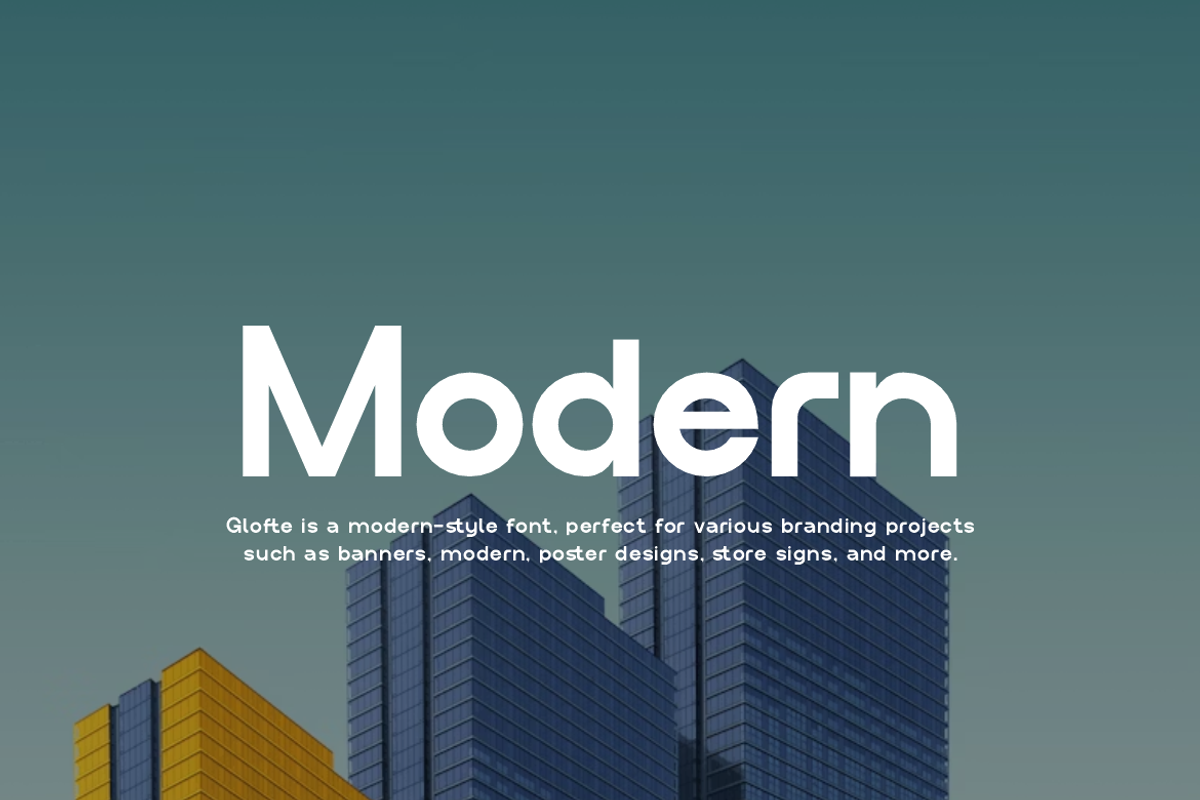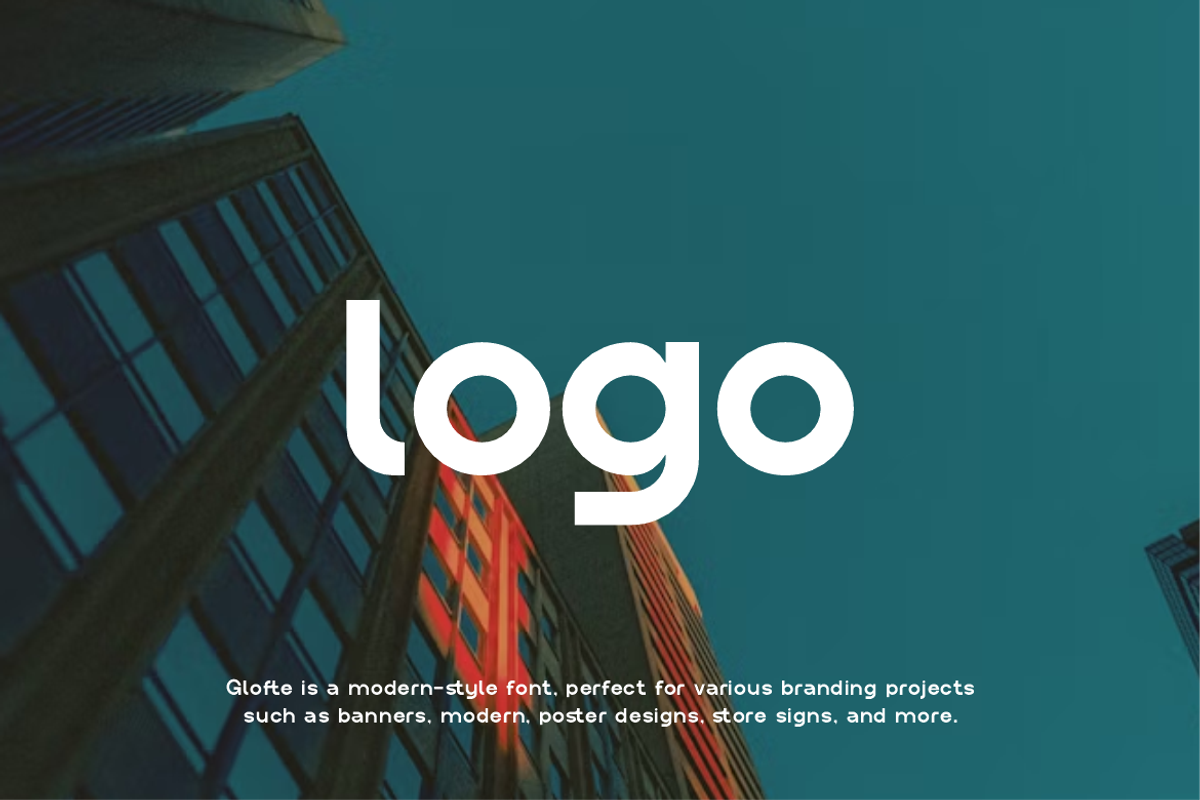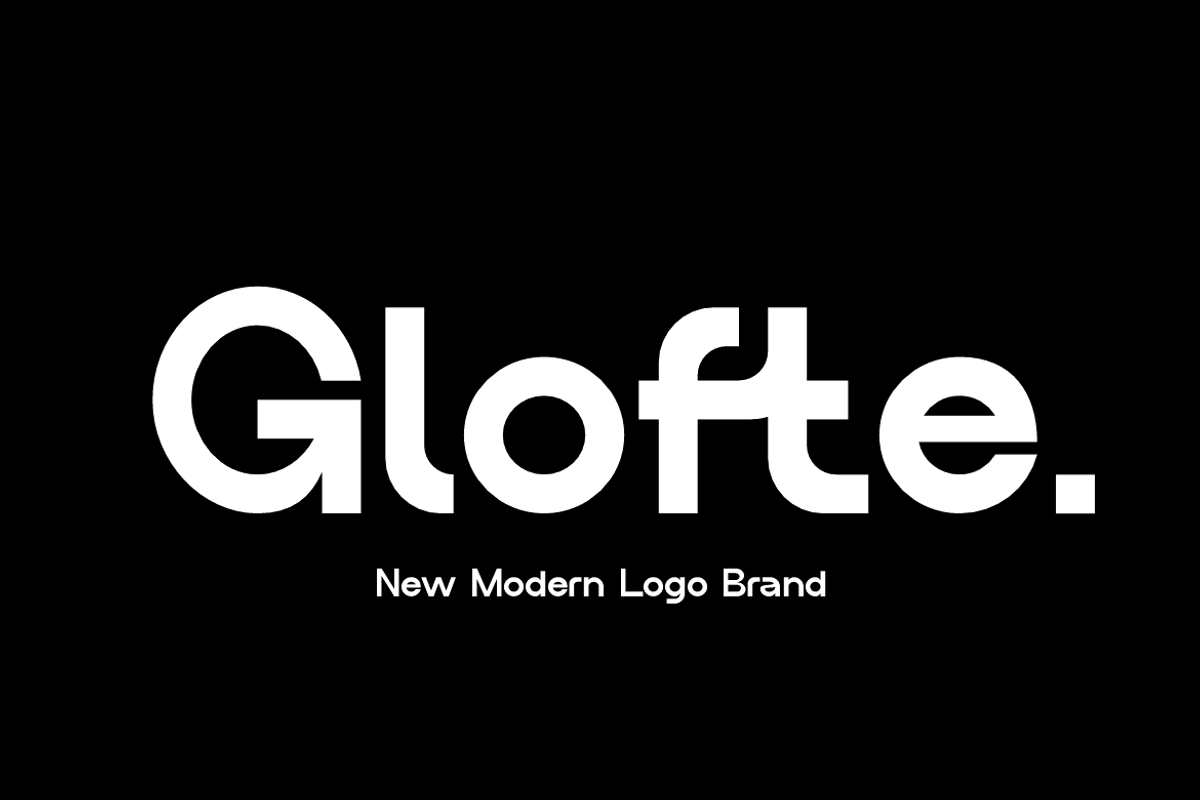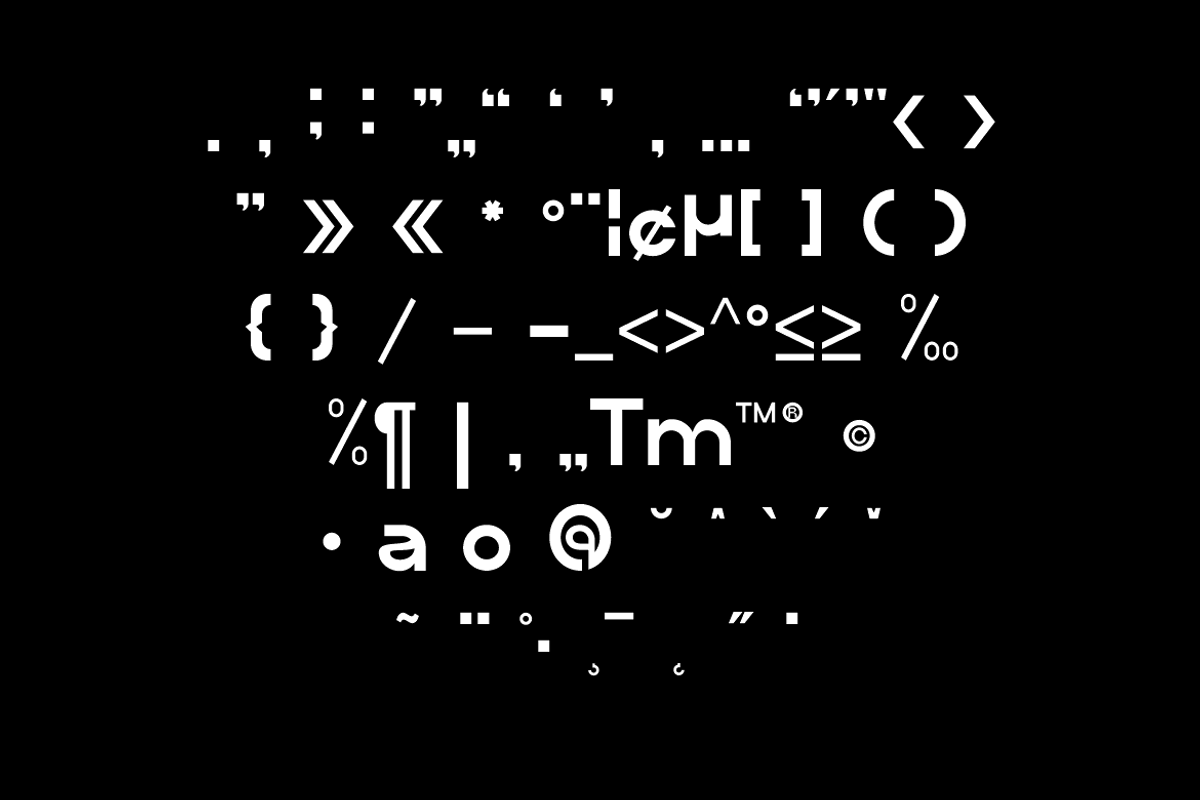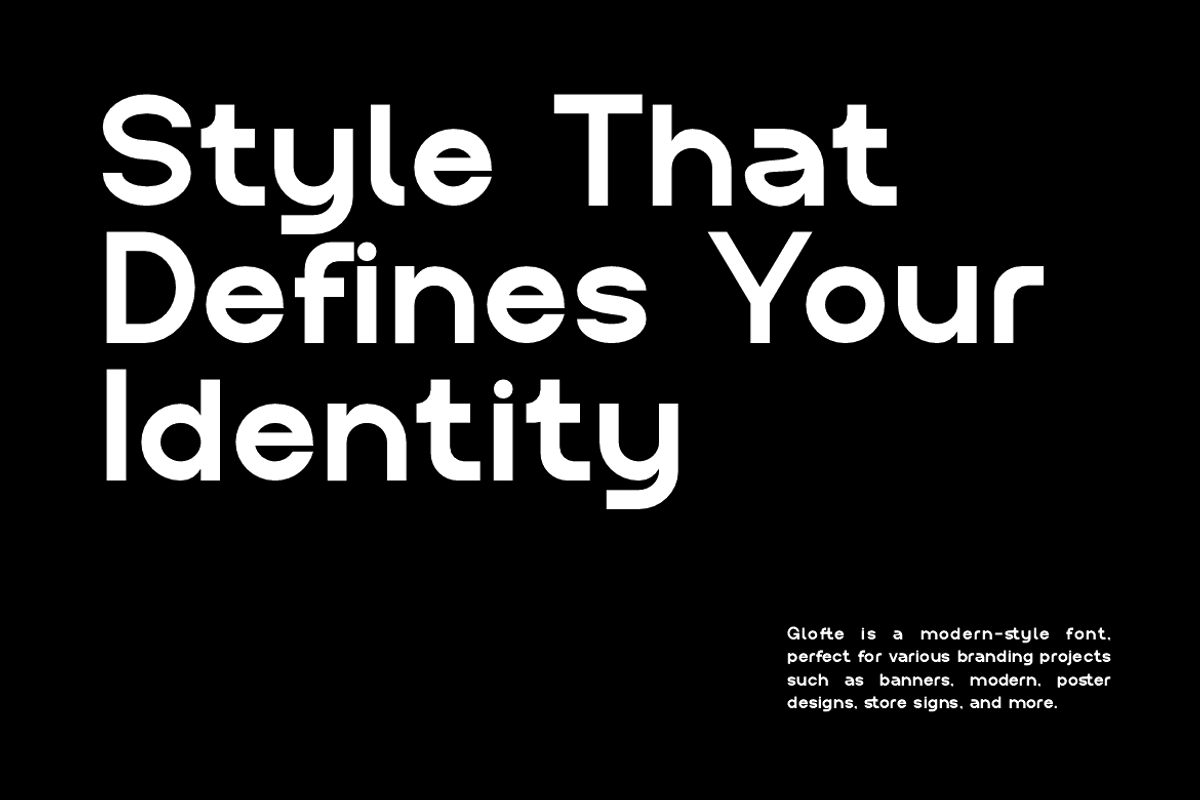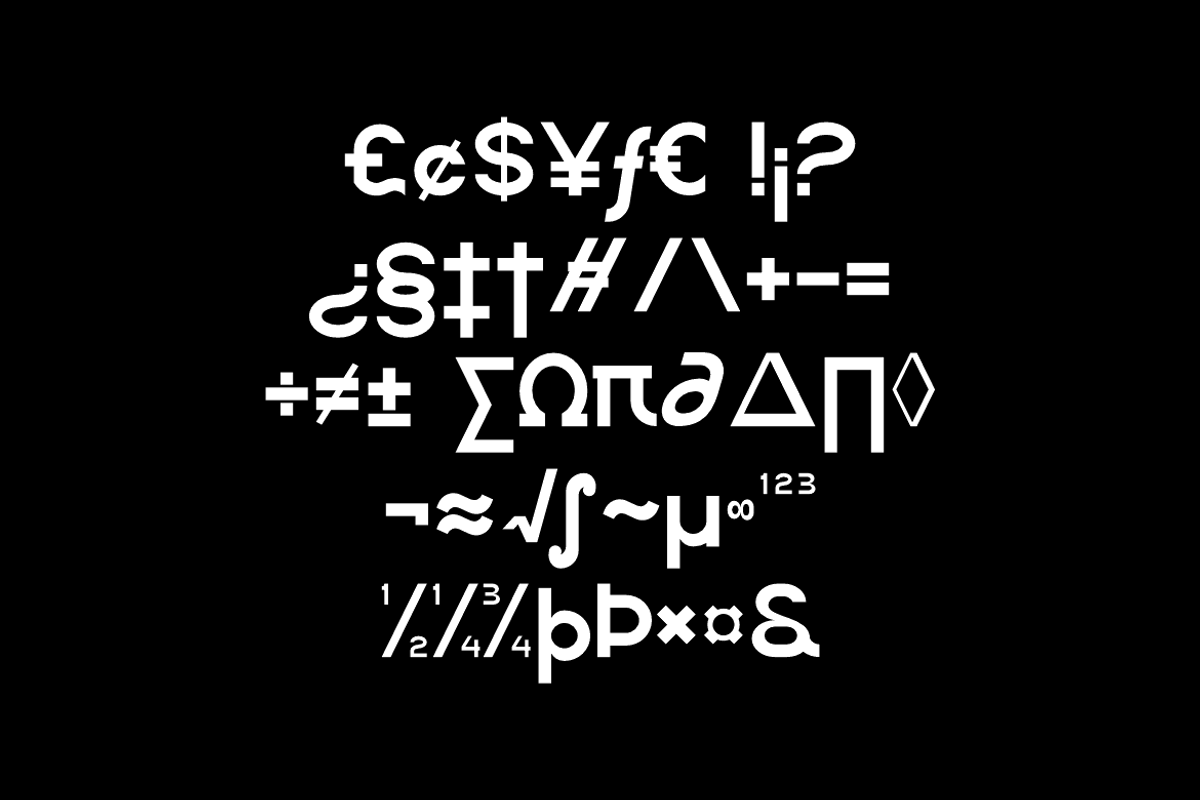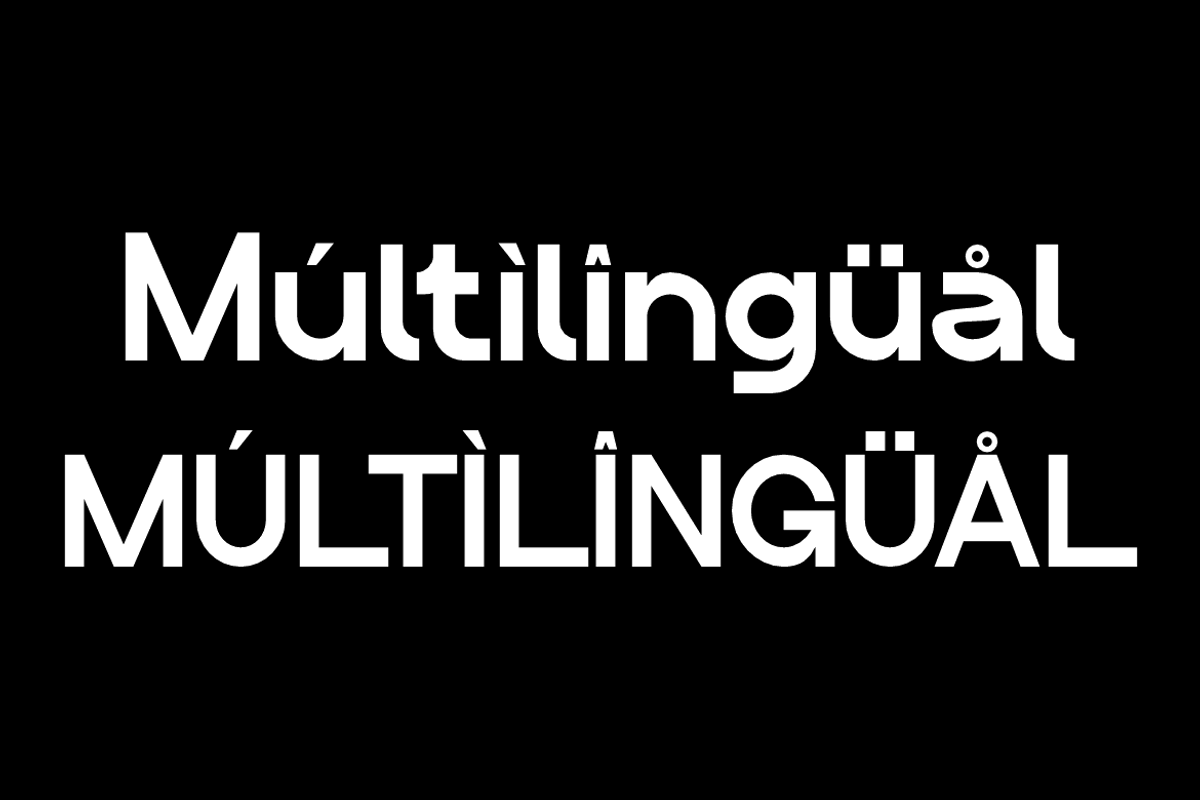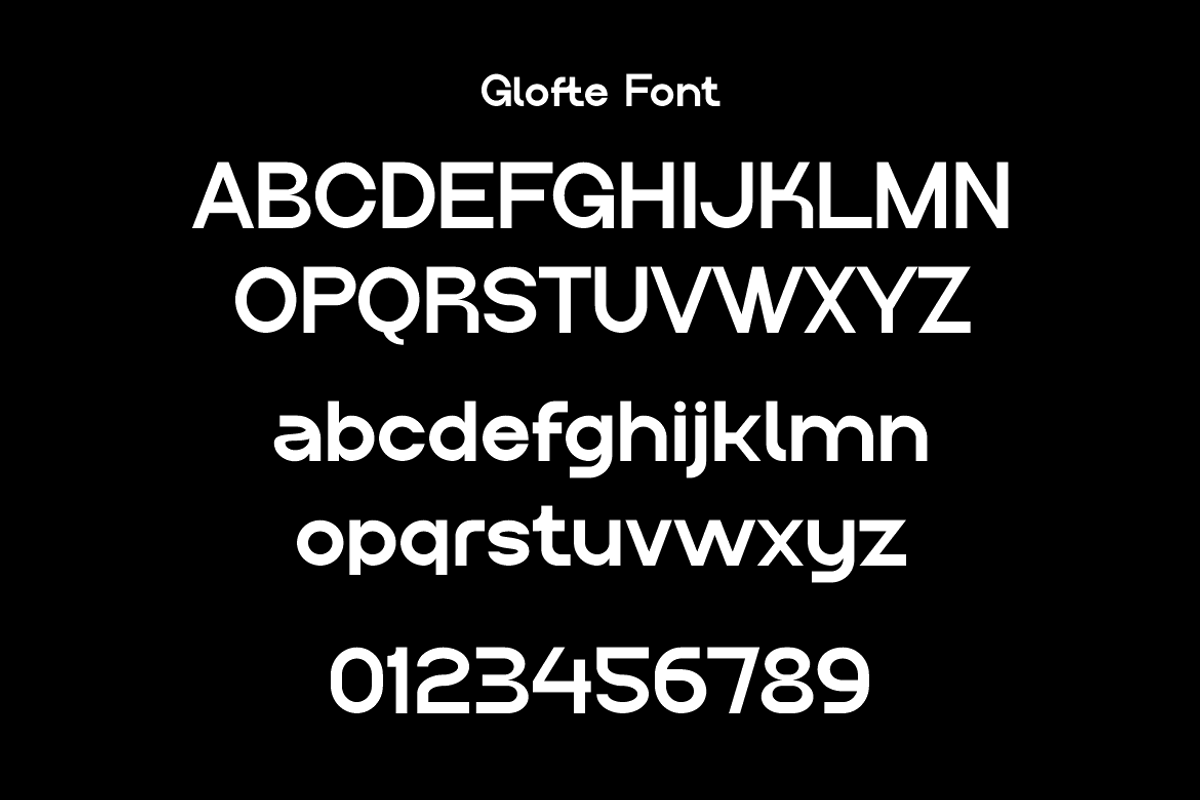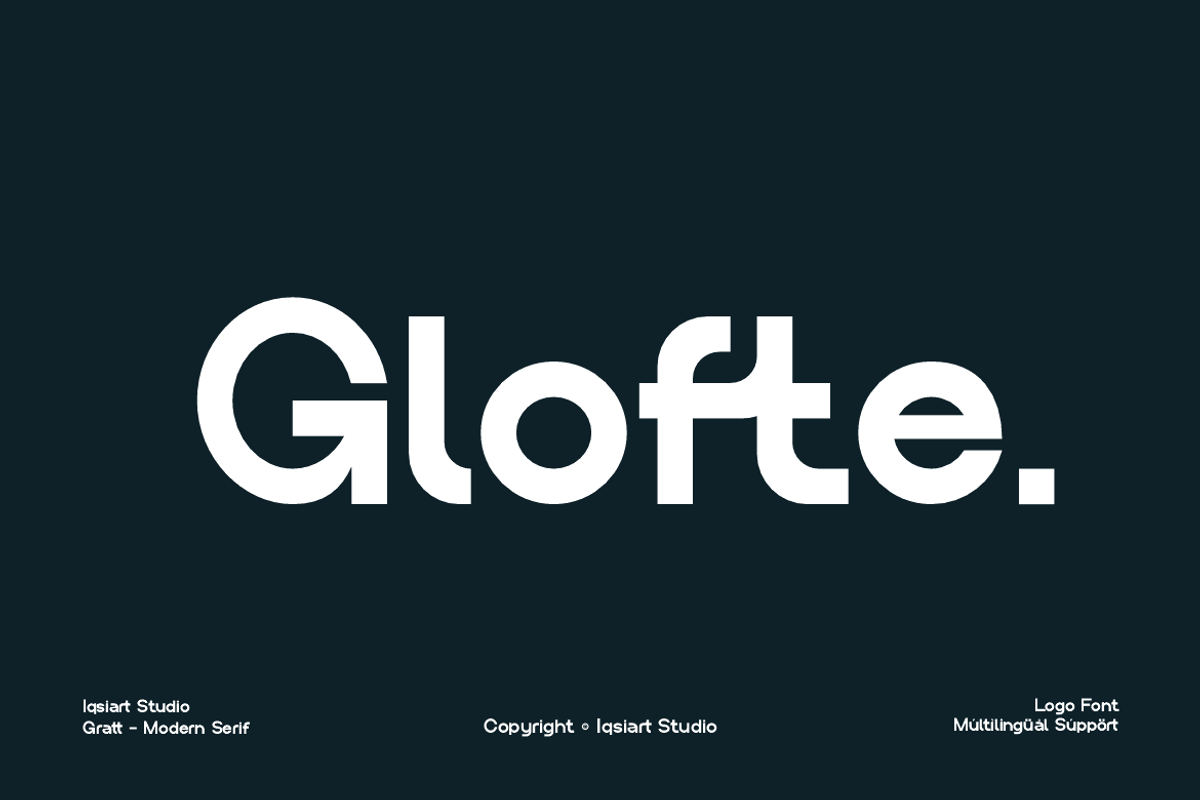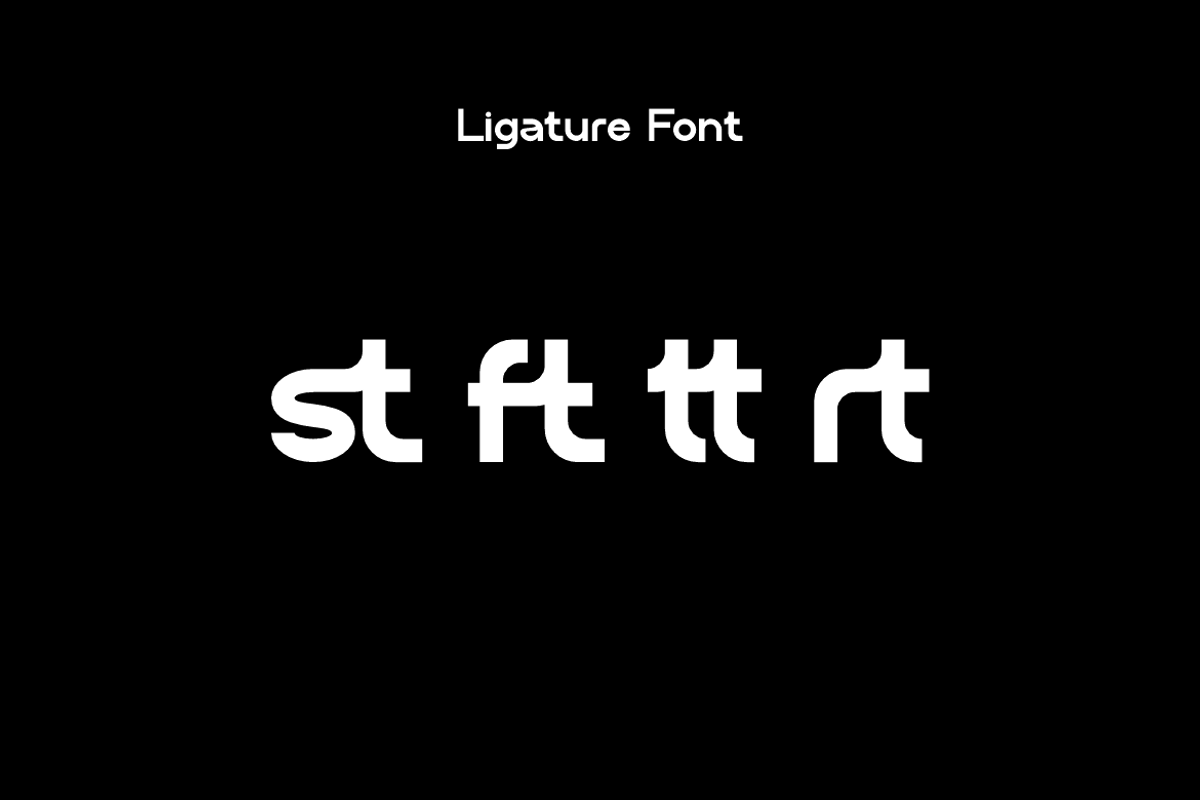
Glofte - Modern Logo Font
Glofte Font is a modern and authentic display typeface that suits a variety of design needs. We offer a wide range of themes and font styles — visit our profile to explore more and find the perfect style for your project.